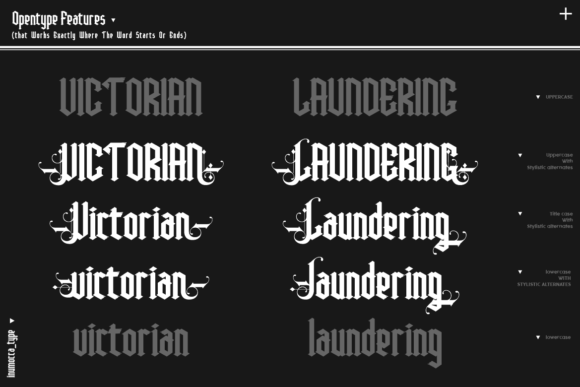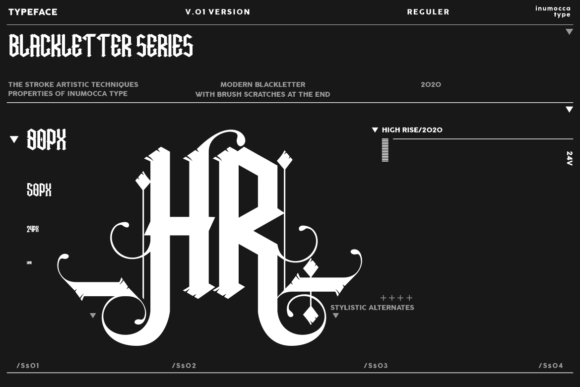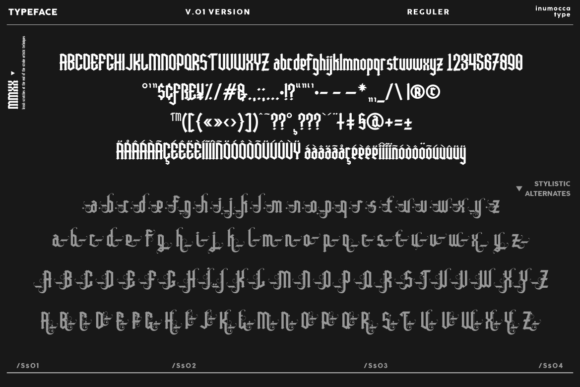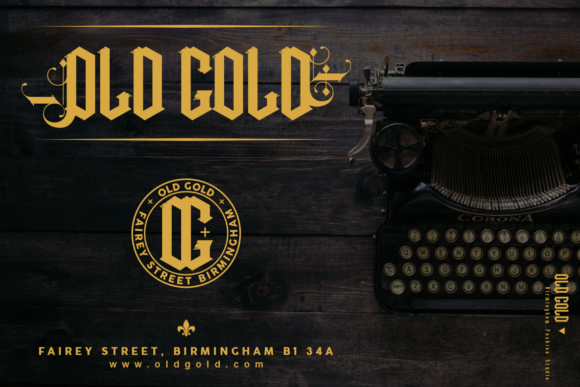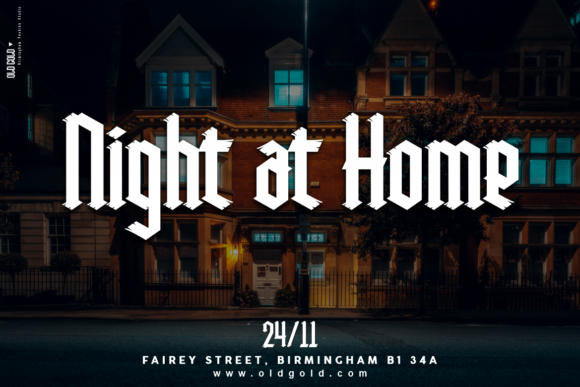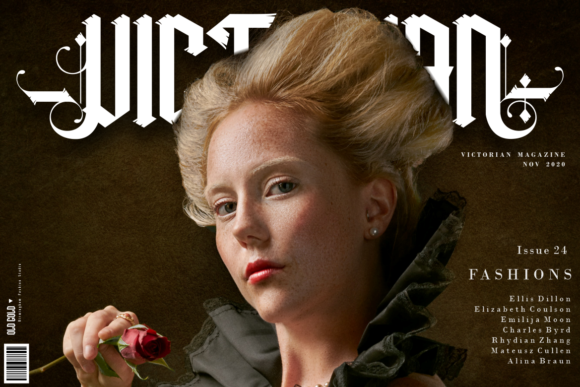
The High Rise Font: A Bold and Unique Blackletter Addition to Your Design Arsenal
I’ll never forget the design project that led me to discover the High Rise font. I was working on a branding project for a crafty startup, and I needed a font that would capture their bold and edgy personality. After hours of scouring font libraries and online marketplaces, I stumbled upon High Rise – a bold and incredibly unique blackletter font that instantly resonated with the brand’s aesthetic. In this article, I’ll share my experience with High Rise, its features, and how to make the most of it in your designs.
An Honest Review of High Rise Font
What I Love About High Rise ✨
- ✅ Unique and bold blackletter design that stands out in any project
- ✅ Highly versatile and can be used for a wide range of applications, from letterheads and titles to stationery
- ✅ Well-crafted and attention to detail in its design
- ⚠️ Limited use in body text due to its bold and ornate design
- ⚠️ May not be suitable for very small font sizes or low-resolution designs
The Designer Inspiration Behind High Rise
The High Rise font was designed with the goal of creating a bold and unique blackletter font that would appeal to designers and crafty enthusiasts alike. The design process involved experimenting with different letterforms and ornamentation to create a font that would stand out in any project. The result is a font that’s both elegant and edgy, perfect for adding a touch of personality to your designs.
| Font Name | High Rise Font |
| Author | inumocca_type |
Q: What is the High Rise font best used for?
A: High Rise is best used for titles, headings, and other display text where a bold and unique font is desired.
Q: Can I use High Rise for body text?
A: While High Rise can be used for body text, it’s not recommended due to its bold and ornate design. It’s better suited for display text and headings.